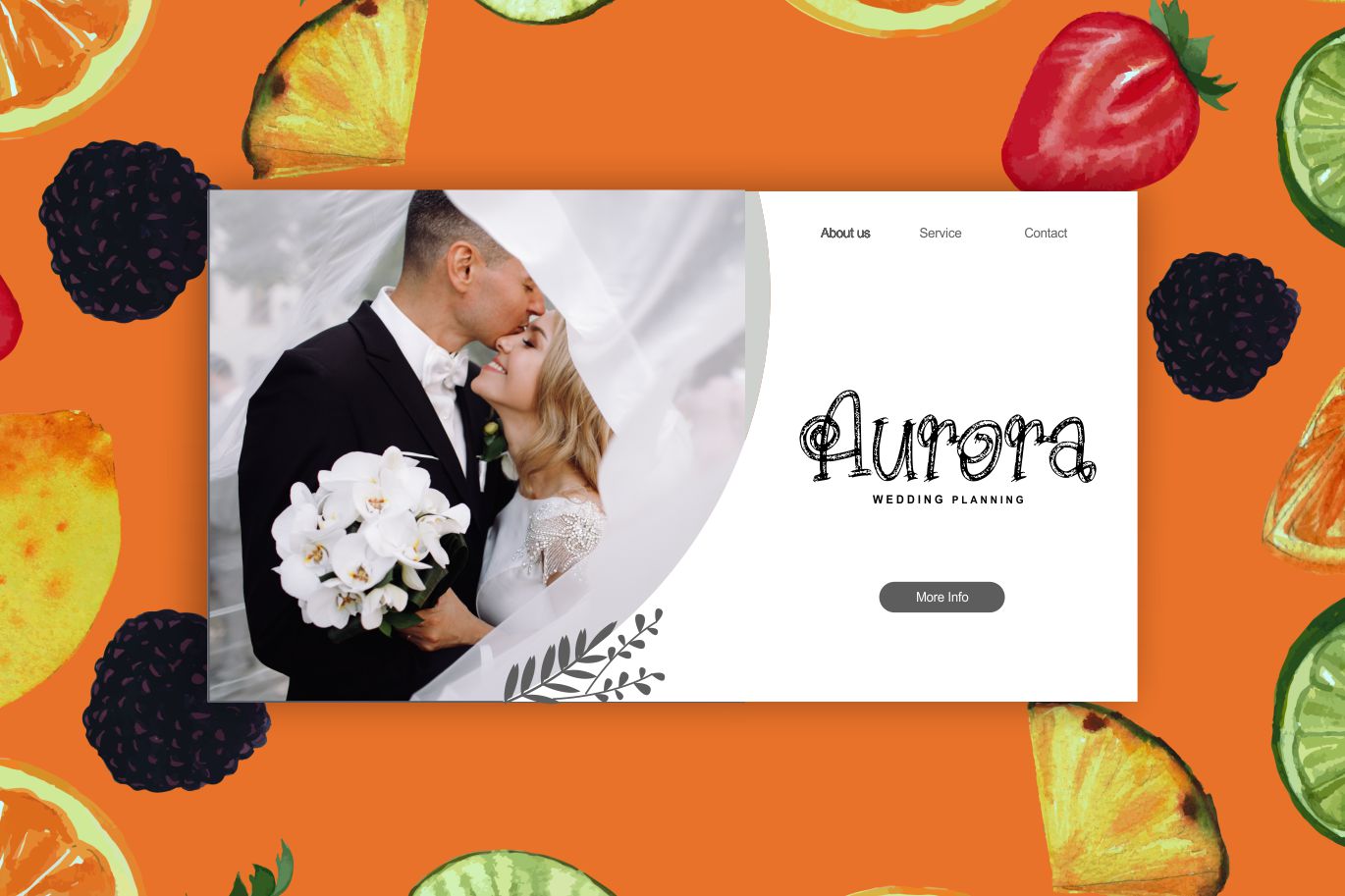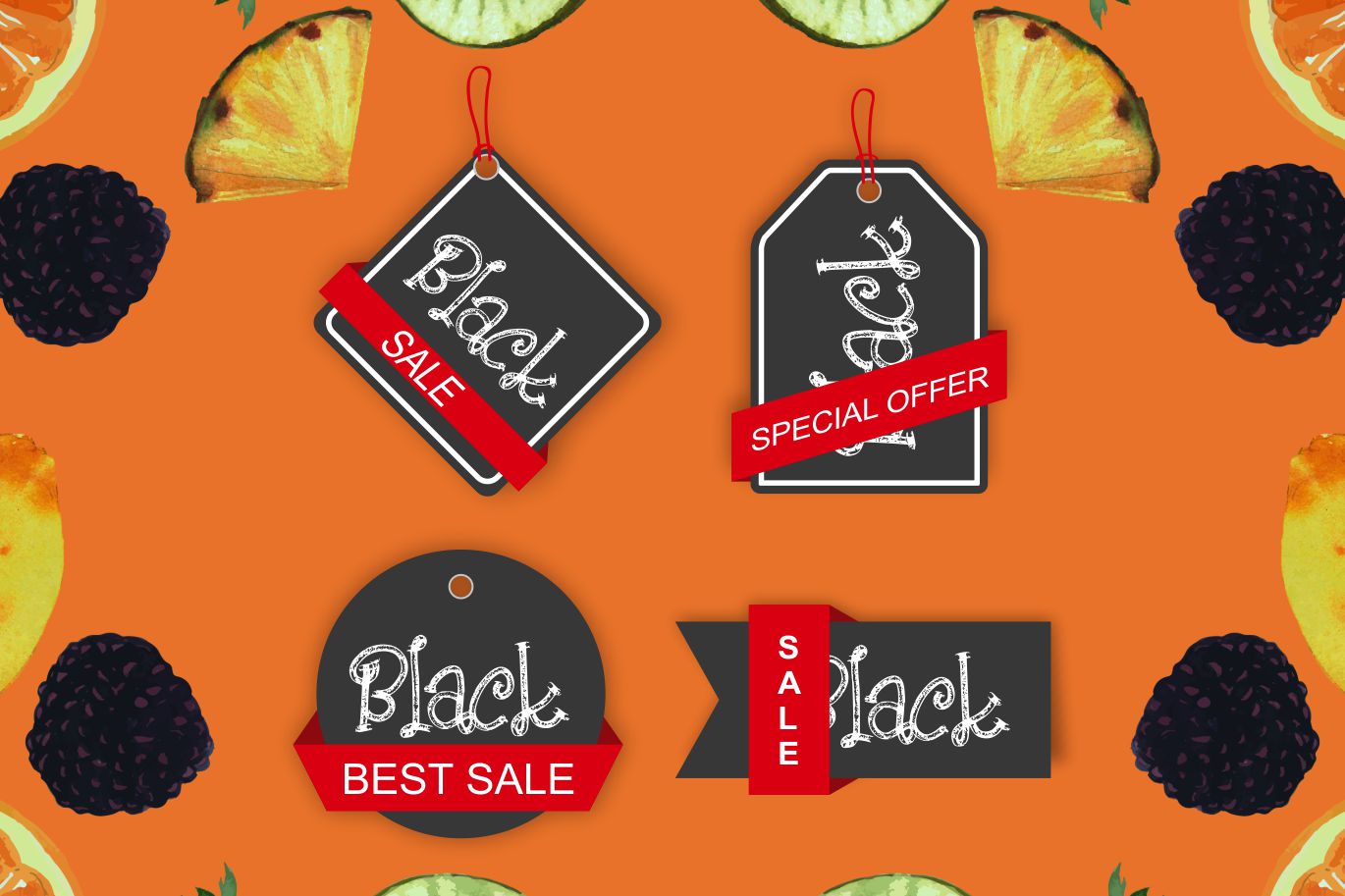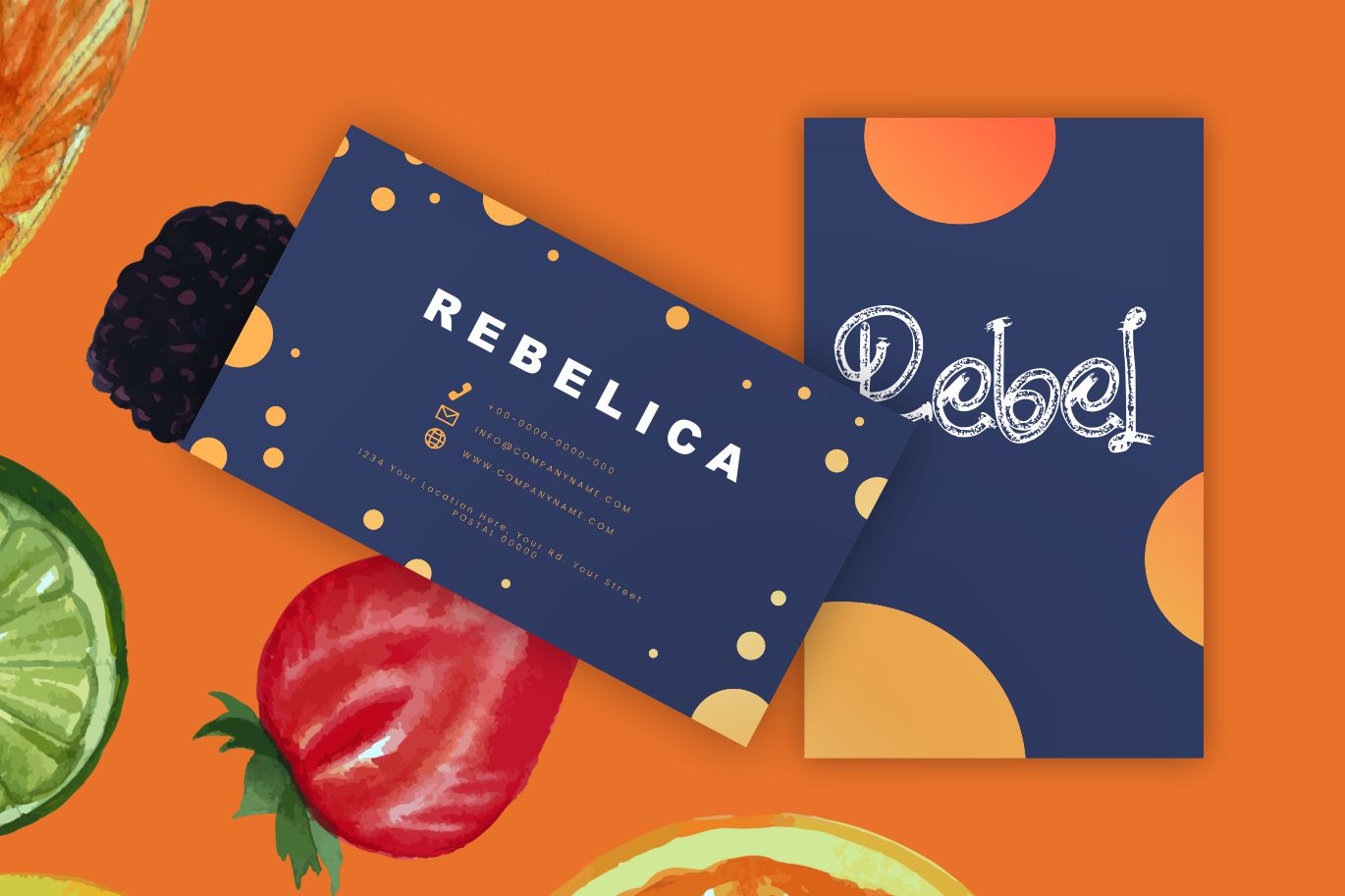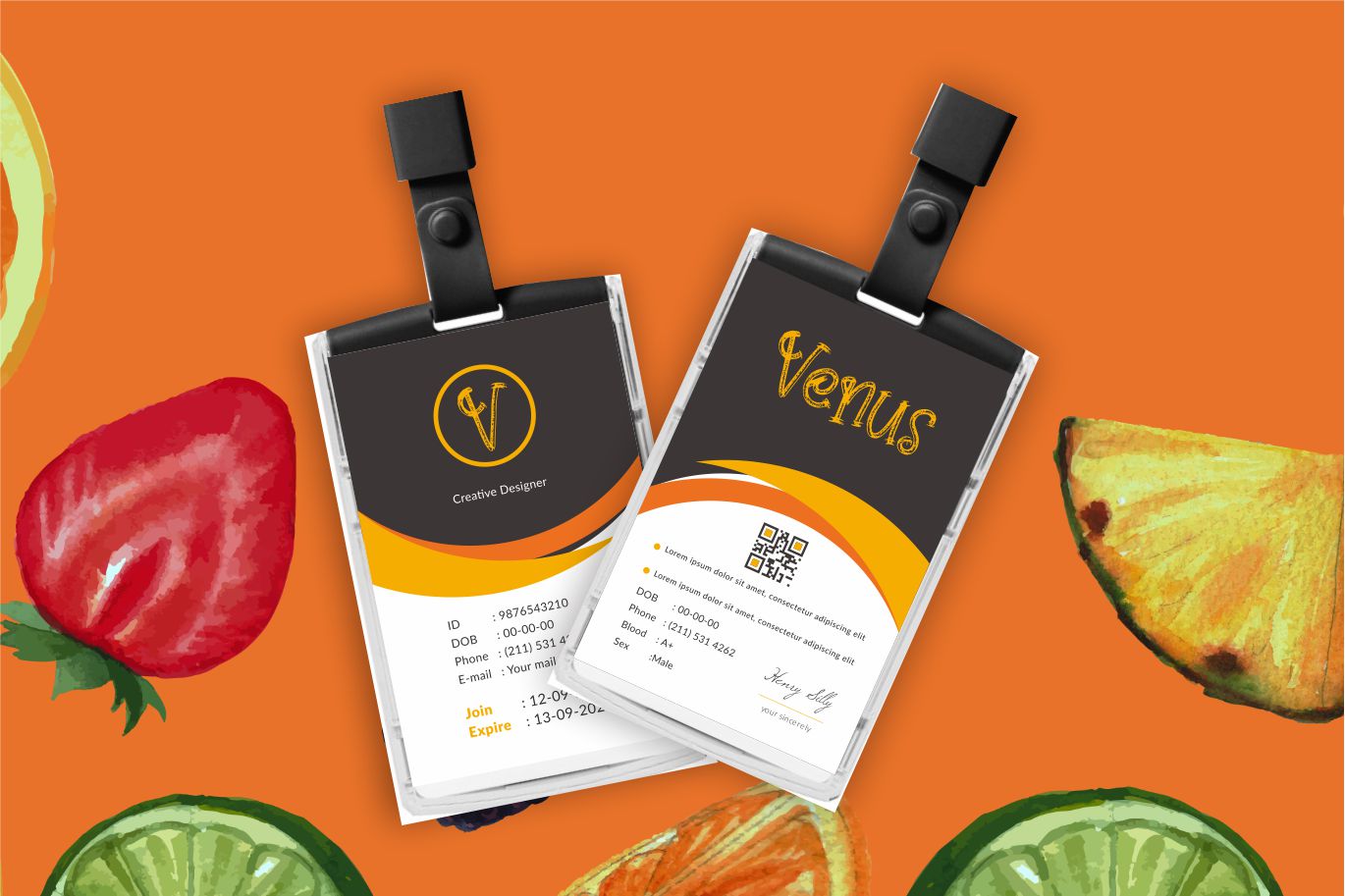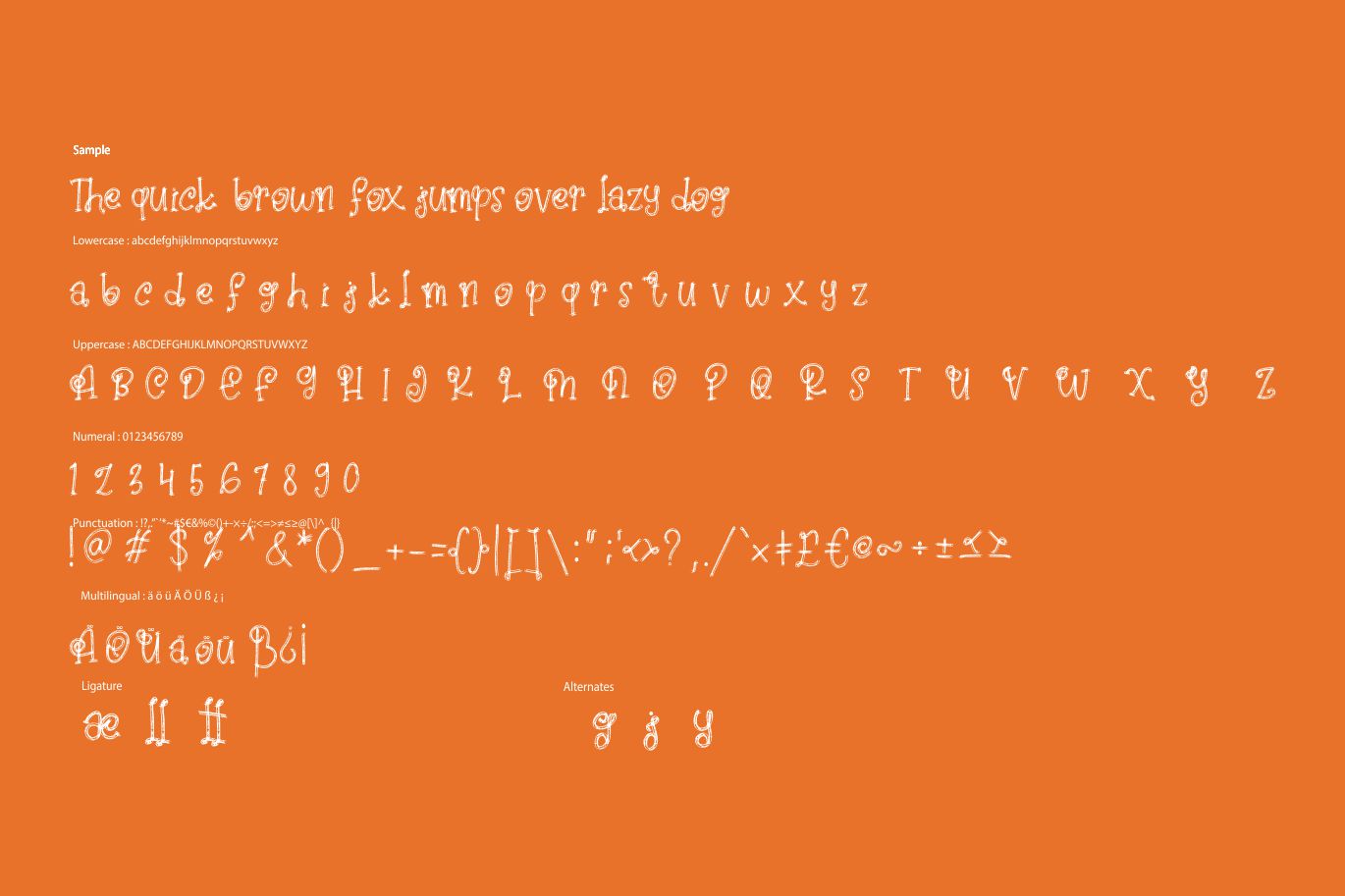
Rose Hips | Decorative Fruit Font
**Rose Hips | Decorative Fruit Font ** with a calligraphy style, So beautiful on invitation like greeting cards, branding materials, business cards, quotes, posters, and more!
* Tons of glyphs
* Alternates and Ligatures
* Punctional
* Fonts include **Multilingual Support**